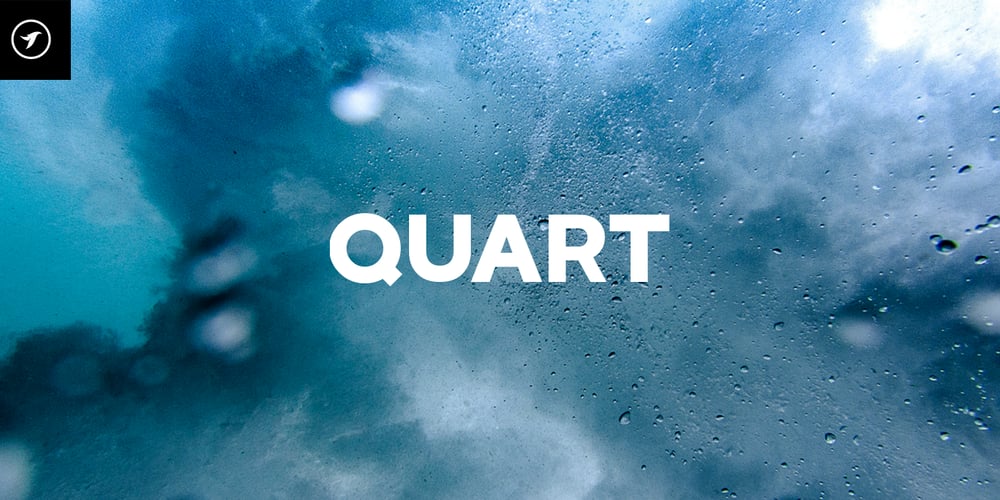
Quart Font Family was designed by Jean Johnson and published by Designova. Quart contains 2 styles and family package options. QUART is an amazingly unique font for headlines, big text, branding, logotypes & display usage. This font is also perfect for creating outstanding logos, promotional content and marketing graphics that can really grab attention from your visitors. Please see the examples shown above to get an idea about the capability of this typeface.